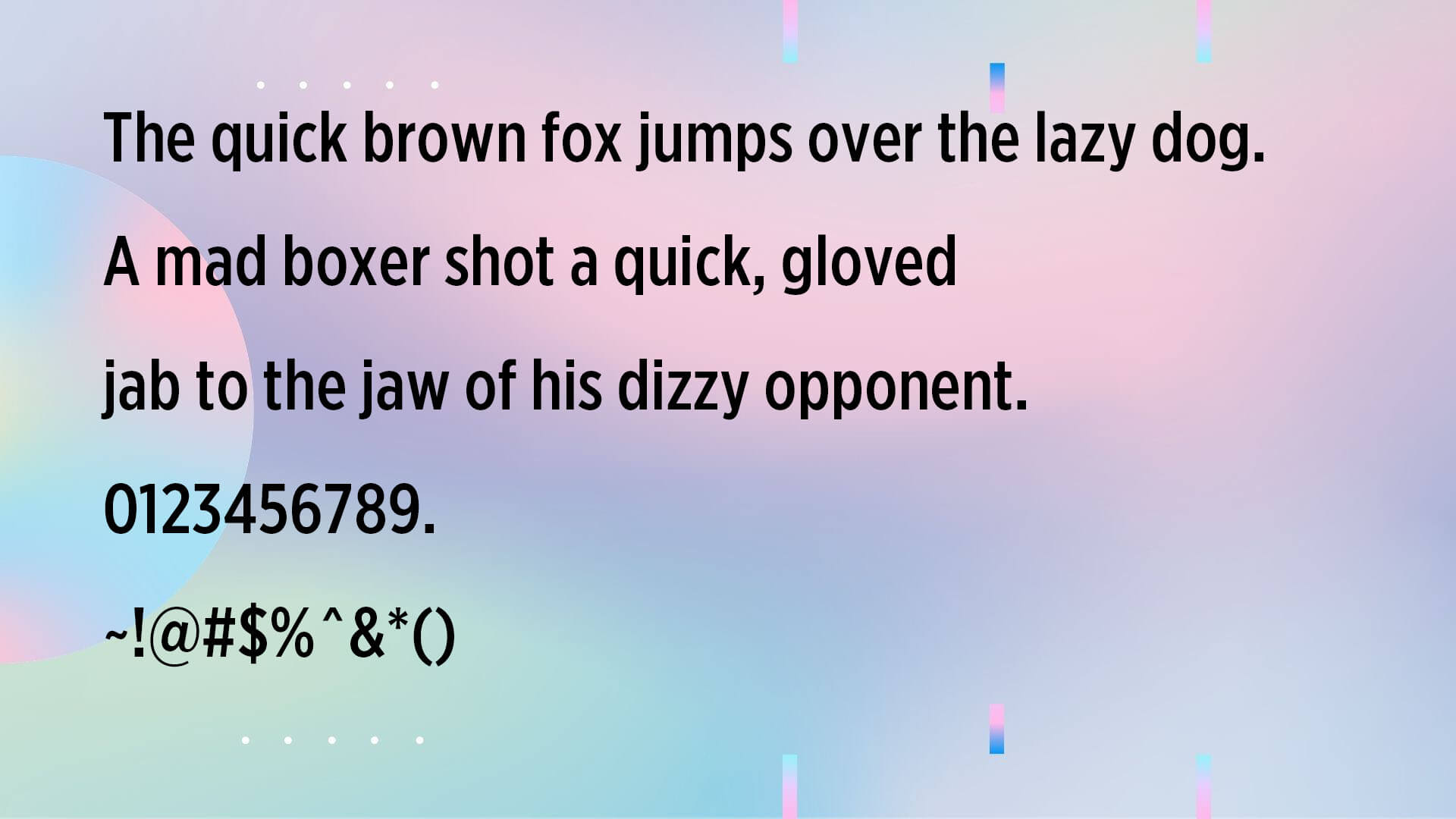
Gotham Narrow Font is a top-notch Sans-serif typeface created by the renowned designer Tobias Frere-Jones. It’s a stunning web font ideal for web design with advanced features, unique characters, and stylish glyphs. Dive into the world of this font family for a visually appealing website that will stand out from the rest. Start using Gotham Narrow Font now to elevate your design game!
This is a style of its family pack that has a total of 30 weights comprising Black to Thin Italic versions. This is a versatile typeface that is completely perfect for the need for modern web designs. It is also paired with the gotham medium font.